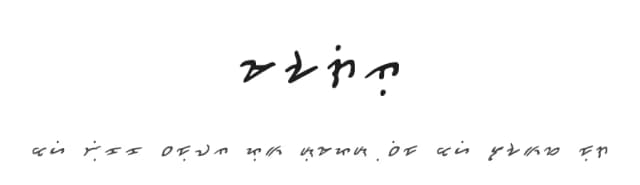
About Dutina Font
Dutina is a dingbat font designed by Apulakan Siklab. It includes 98 glyphs, a regular weight, TTF (TrueType) format, and 104 languages. Dutina is free to download; check the license details on this page before commercial use. Dingbat fonts like Dutina work best for icons, ornaments, bullet points, and decorative accents.
Dutina Font is a versatile dingbats font that works for both headings and body text. Pair it with a contrasting sans-serif or serif font to add visual interest and a clear distinction between titles and body copy.